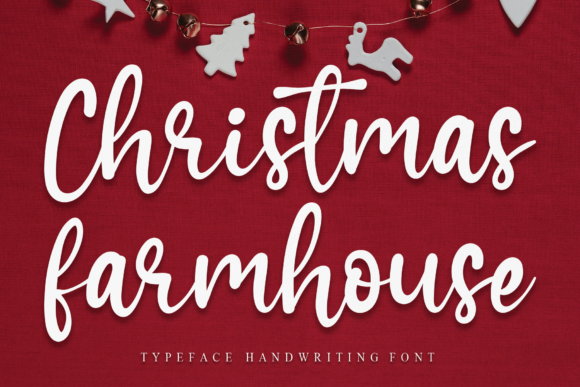
Introducing Christmas Farmhouse Font, the epitome of joy and elegance in the world of fonts. This exquisite script font, created by the talented Creativewhitee, will instantly captivate your heart with its cursive and handwritten charm. Get ready to embark on a creative journey that will elevate your designs to new heights.
Immerse yourself in the enchanting world of Christmas Farmhouse, where every character dances gracefully along the baseline, adding a touch of whimsy to your projects. This font is more than just a collection of letters; it's a work of art that exudes authenticity and warmth.
Are you planning a dreamy wedding? Look no further, as Christmas Farmhouse Font is here to make your invitations truly unforgettable. Let its elegant curves and romantic allure sweep your guests off their feet, setting the perfect tone for your special day.
But the magic doesn't stop there! Unleash your creativity and explore the endless possibilities that this font offers. From crafting beautiful stationary art to designing eye-catching social media posts, Christmas Farmhouse Font will effortlessly bring your ideas to life. Its versatility knows no bounds, making it the perfect companion for any project that requires a touch of elegance and sophistication.
Imagine the joy on your loved ones' faces when they receive a heartfelt greeting card adorned with the exquisite Christmas Farmhouse Font. Let your messages of love and appreciation shine through, leaving a lasting impression on those who matter most.
Now, let's talk about the secret ingredient that sets Christmas Farmhouse Font apart from the rest – its emotional impact. With every stroke of this font, emotions are stirred, connections are forged, and memories are made. It evokes a sense of nostalgia, reminding us of the warmth and love shared during the holiday season.
In conclusion, Christmas Farmhouse Font is not just any font; it's an experience. It's the perfect blend of elegance, authenticity, and creativity that will take your designs to a whole new level. So, why wait? Let the magic of Christmas Farmhouse Font enchant your projects and leave a lasting impression on those who behold them.